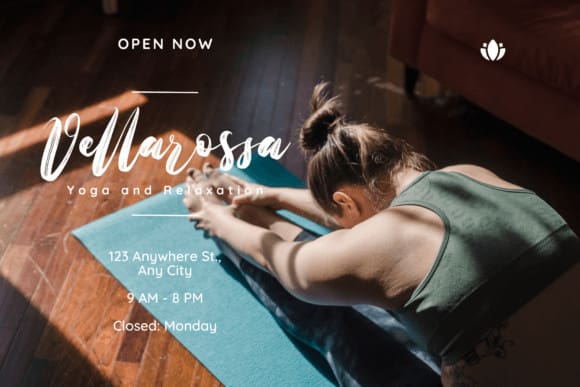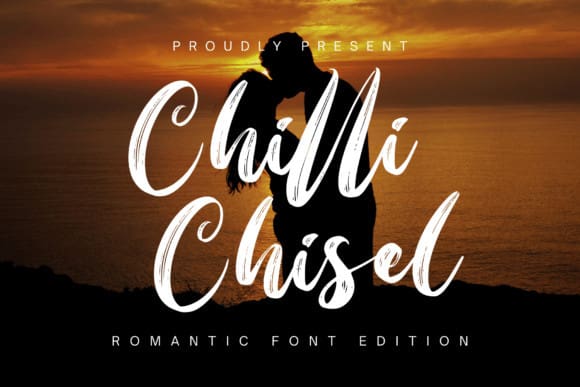
Chilli Chisel Font
Chilli Chisel Font is a chic and refined script brush font that exudes romantic sophistication and elegance. Its stylish alternatives and ligatures make this font a great fit for any project. This font is PUA encoded which means you can access all the glyphs and swashes easily!